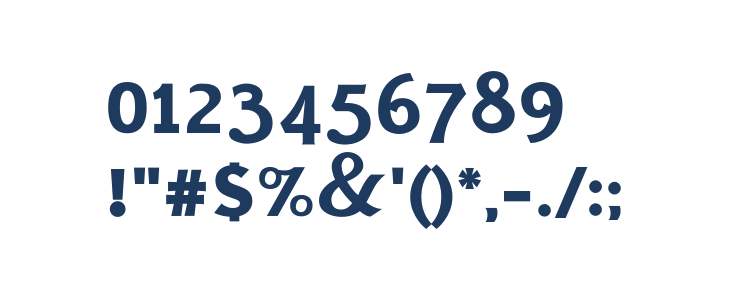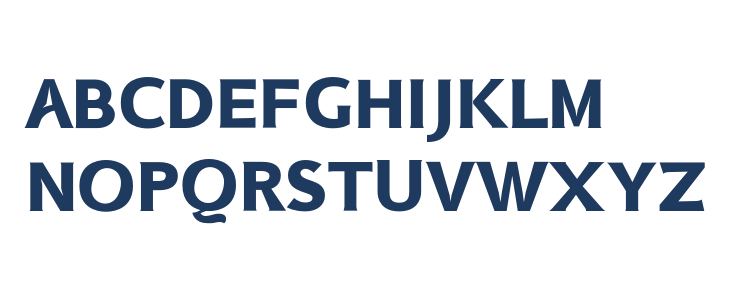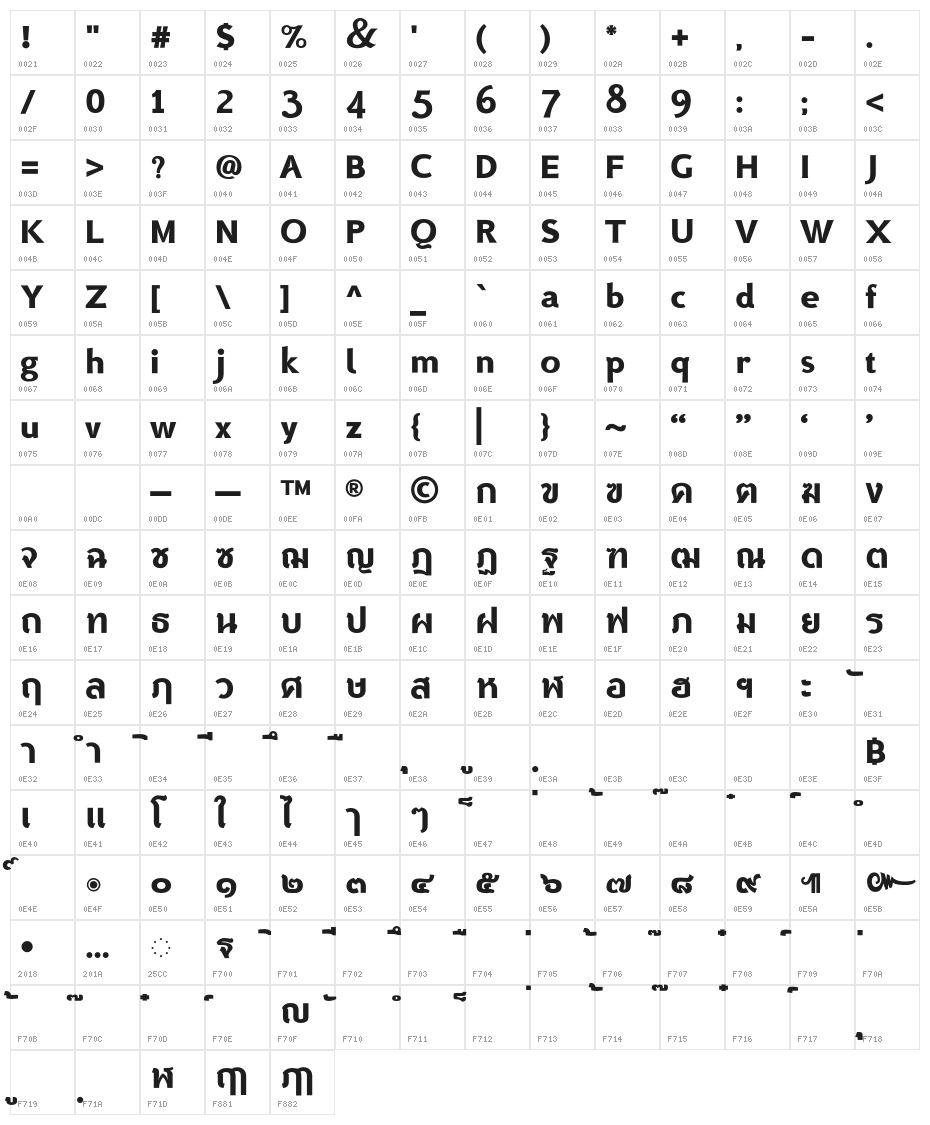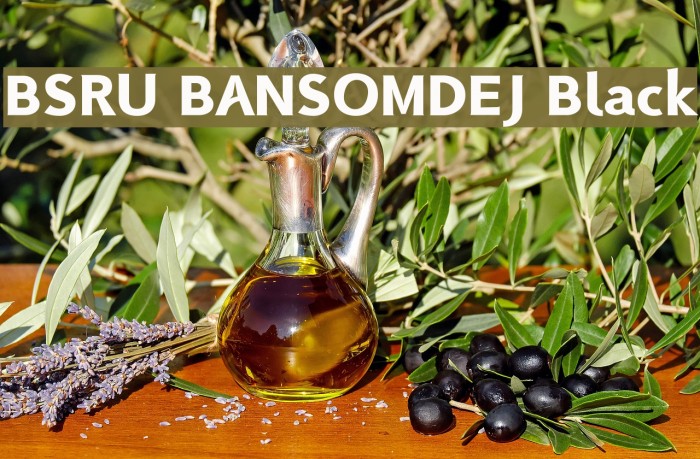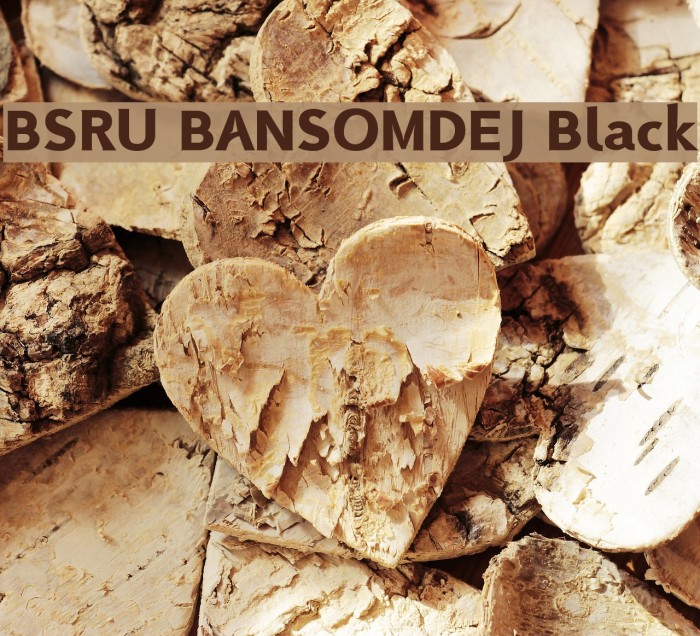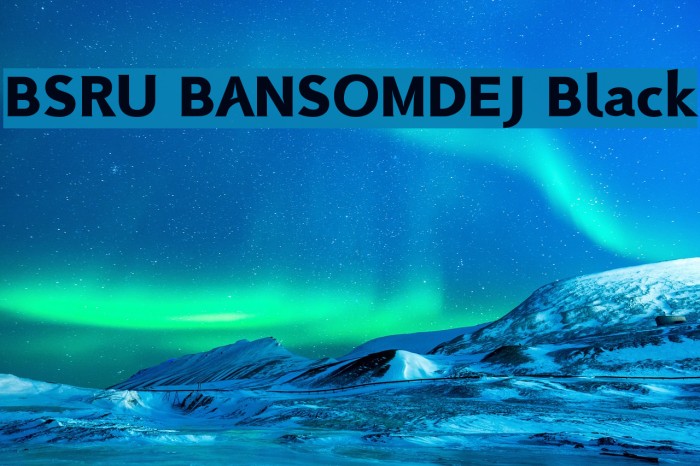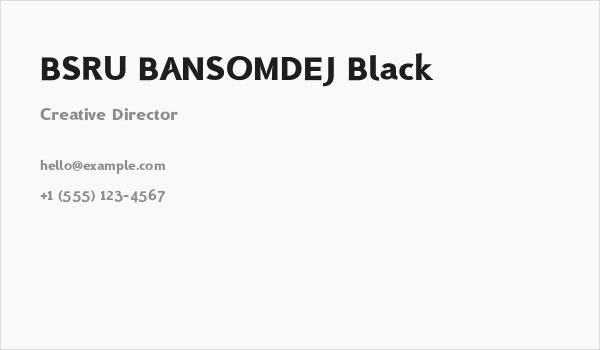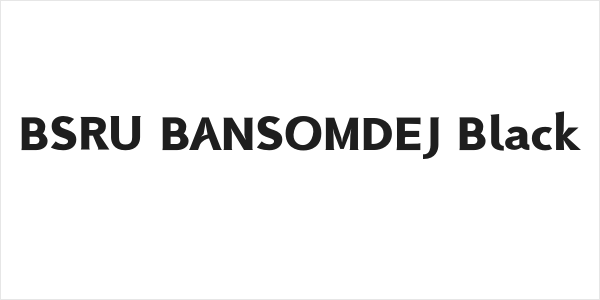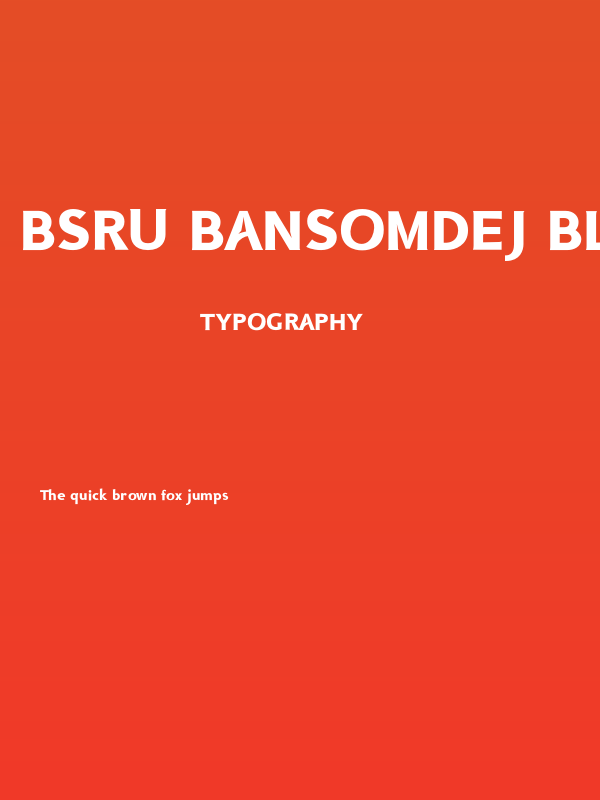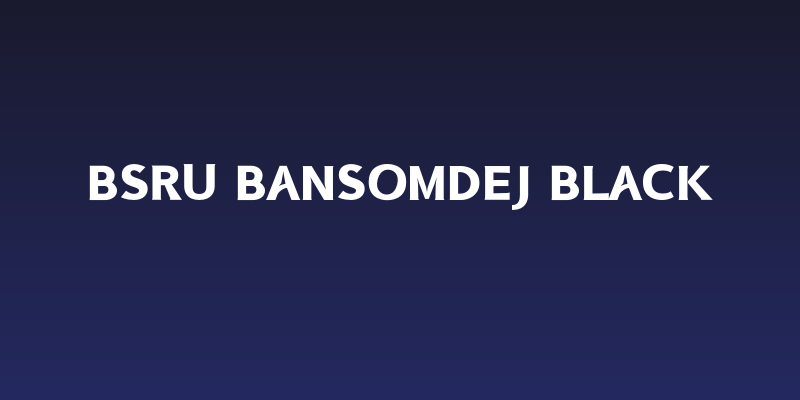
BSRU BANSOMDEJ Black Font
BSRU BANSOMDEJ Black Description
This font features bold, strong characters with a modern and slightly decorative style. The uppercase letters are robust and commanding, while the lowercase letters maintain a consistent weight, offering a harmonious balance. The numerals are clear and legible, making them suitable for various applications. Special characters are well-defined, adding versatility to the font. The overall design is clean and impactful, making it ideal for attention-grabbing headlines and branding.
| Proposed Projects | Ideal for branding, headlines, posters, and advertising materials where a strong visual impact is needed. |